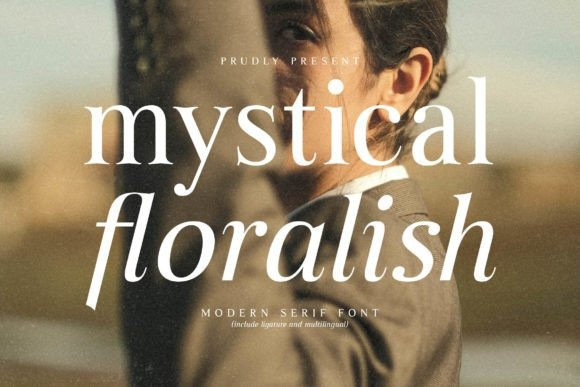
Mystical Floralish Font
Mystical Floralish Font is a modern and classic serif typeface that has its own unique style & modern look. It is perfect for an elegant & luxury logo, book or movie title design, fashion brand, magazine, clothes, lettering, quotes, and so much more.